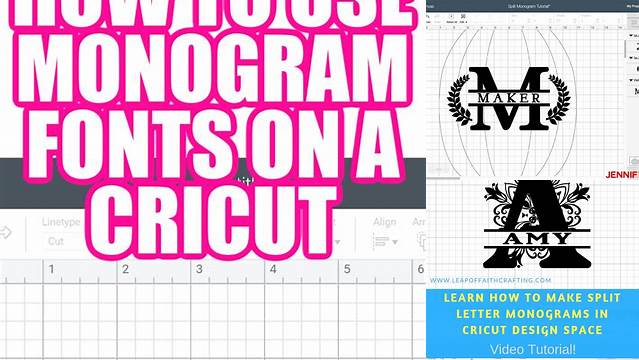
Free Split Monogram Fonts For Cricut: Your Ultimate Guide
Hey crafters! Are you looking to add that personal touch to your projects with beautiful split monograms? If you're a Cricut user, you know how essential the right fonts are. And let's be honest, who doesn't love free stuff? Today, we're diving deep into the world of free split monogram fonts for Cricut. We'll explore where to find them, how to use them, and why they're such a game-changer for personalizing everything from t-shirts and bags to home decor and gifts. Get ready to elevate your crafting game without breaking the bank!
Where to Score Awesome Free Split Monogram Fonts
Finding high-quality free split monogram fonts for Cricut can feel like striking gold, and thankfully, there are plenty of treasure troves online. Many font designers generously offer their creations for personal use, allowing crafters like us to access stunning designs without cost. Websites like DaFont, Font Squirrel, and Creative Fabrica are fantastic starting points. While not all fonts on these platforms are specifically split monogram fonts, a little digging can reveal hidden gems. Look for keywords like "split font," "interlocking font," "monogram font," or "vine font" in their search bars. Always, always double-check the licensing information. Most free fonts are for personal use only, which is perfect for your hobby projects. If you plan to sell items made with these fonts, ensure the license permits commercial use, or be prepared to purchase a commercial license. Some designers might even offer free bundles or special promotions, so keep an eye on their social media or newsletters. Don't forget dedicated free font sites like FontBundles.net, which often have a section for freebies, including some beautiful split monogram styles. The key is patience and persistent searching. You might stumble upon smaller, independent font foundries that offer a few exquisite split fonts for free. Remember to download fonts from reputable sources to avoid malware or viruses. A good rule of thumb is to stick to well-known font repositories and the official websites of font creators.
Understanding the Magic of Split Monogram Fonts
So, what exactly makes a split monogram font so special, especially for Cricut users? These fonts are designed with a unique characteristic: the letters have a 'split' or a gap down the middle, usually vertically. This split is intentional, creating a space where you can insert a central initial or decorative element. Think of it as a blank canvas within each letter. For monograms, this is pure genius! You can use a traditional serif or script font for the outer letters (like the first initial of a last name and the first initial of a first name) and then layer a different, often more decorative font for the central initial (the last name's initial). This layered effect creates a sophisticated, personalized look that's incredibly eye-catching. For Cricut projects, this means you can cut different colors of vinyl or cardstock for the outer letters and the inner initial, leading to a beautiful contrast and depth. This technique adds a professional polish to handmade items, making them look like they came straight from a boutique. The versatility is astounding; you can use them for classic, elegant designs or modern, minimalist ones, depending on the font style and how you layer your elements. The free split monogram fonts for Cricut allow you to experiment with this layering technique without any financial commitment, making it accessible for everyone wanting to add that extra flair to their creations. It's this inherent design feature that unlocks a whole new level of customization for DIY enthusiasts.
The Versatility of Free Split Monogram Fonts for Cricut Projects
Guys, the sheer versatility of free split monogram fonts for Cricut is mind-blowing. You can use them for practically any project you can dream up. Let's talk t-shirts. Imagine a cute split monogram tee for a bridal shower, a birthday, or just because. You can use a vibrant color for the outer letters and a contrasting metallic or glitter vinyl for the central initial. Or how about tote bags? Personalize a canvas tote for a teacher, a friend, or even yourself. It instantly elevates a simple bag into a statement piece. Home decor is another huge area where these fonts shine. Think about adding a split monogram to throw pillows, a decorative wooden sign for your entryway, or even a personalized mug for your morning coffee. The possibilities are endless! For gifts, a split monogram makes any item feel extra special and thoughtful. Personalized glassware, custom stationery, keychains, phone cases – you name it, a split monogram can make it pop. The beauty of using them with your Cricut is the precision. You can easily size, space, and layer the different elements of the monogram to perfection. Plus, with free split monogram fonts for Cricut, you can try out different styles and combinations without worrying about the cost. Want to experiment with a fancy script for the initials and a bold sans-serif for the center? Go for it! This freedom allows for endless creativity and ensures your projects are always unique and reflect your personal style or the recipient's personality. It's this adaptability that makes them an indispensable tool in any crafter's digital arsenal.
Finding the Best Free Split Fonts for Cricut Design Space
How to Install and Use Free Split Monogram Fonts with Cricut
Tips for Working with Split Monogram Fonts in Cricut Design Space
Working with free split monogram fonts for Cricut can be super fun, but like any font, they have their quirks. Here are some pro tips to make your Design Space experience smoother and your projects even more amazing. First off, manage your fonts. If you download a lot of free fonts, they can clutter up your system. Use your computer's font management tools or Design Space's filtering options to keep things organized. Secondly, preview is key. Before committing to cutting, use the 'Slice' or 'Weld' tools strategically. For split monograms, you often want to layer the central initial on top of the split letters. Make sure the central initial is perfectly aligned. Sometimes, using the 'Center Horizontally' and 'Center Vertically' alignment tools after selecting both the split letters and the central initial can help. You might also need to manually nudge it into the perfect spot. Consider the cut quality. Very thin or intricate parts of a split font might not cut well, especially on smaller projects or with certain materials like delicate vinyl. Always do a small test cut if you're unsure. Weeding can be tricky. Those inner parts of letters can be small and fiddly. Having good weeding tools and good lighting is essential. Use 'Attach' wisely. If you're layering multiple colors (e.g., outer letters one color, inner initial another), don't weld them unless you intend to cut them all from the same material. Instead, use 'Attach' to keep their relative positions for cutting. If you want the letters to cut as a single shape, then 'Weld' is your friend. Experiment with sizing. What looks good on screen might need adjustment in real life. Try scaling your monogram up or down to see what works best for your specific project. Finally, layering different materials. Split fonts are perfect for combining different vinyl types – like matte and glitter, or holographic and regular. The split gives you a clean separation point for applying different colors or textures. By keeping these tips in mind, you'll find working with free split monogram fonts for Cricut becomes a breeze, leading to professional-looking results every time.
Popular Styles of Free Split Monogram Fonts
When you're on the hunt for free split monogram fonts for Cricut, you'll notice they come in a variety of styles, each offering a different vibe for your projects. One of the most classic and widely loved styles is the script split font. These fonts feature elegant, flowing letterforms, often with a beautiful swirl or flourish. They are perfect for wedding monograms, bridal gifts, or anything requiring a touch of romance and sophistication. The split in these fonts usually runs right down the middle, allowing a contrasting initial to nestle perfectly within the curves. Another popular category is the block or sans-serif split font. These fonts are typically bold, clean, and modern. Think thick, straightforward letter shapes with a distinct vertical split. They work exceptionally well for casual wear, home decor signs, or any project where you want a strong, contemporary look. The boldness makes them easy to read and cut, even at smaller sizes. You'll also find vine or floral split fonts. These are often more whimsical and decorative. The letters might have subtle vine-like elements creeping around them, or the split itself might be adorned with small leaves or flowers. These are fantastic for garden-themed projects, spring crafts, or adding a touch of nature-inspired charm. Some designers also create interlocking split fonts, where the outer letters are designed to slightly overlap or connect in an interesting way, even before you add the central initial. This adds another layer of visual interest. When choosing, consider the overall aesthetic you're going for. Do you want something timeless and elegant like a script, or bold and modern like a block font? The variety available means you can find free split monogram fonts for Cricut to match virtually any occasion or personal style, making your Cricut creations truly one-of-a-kind.